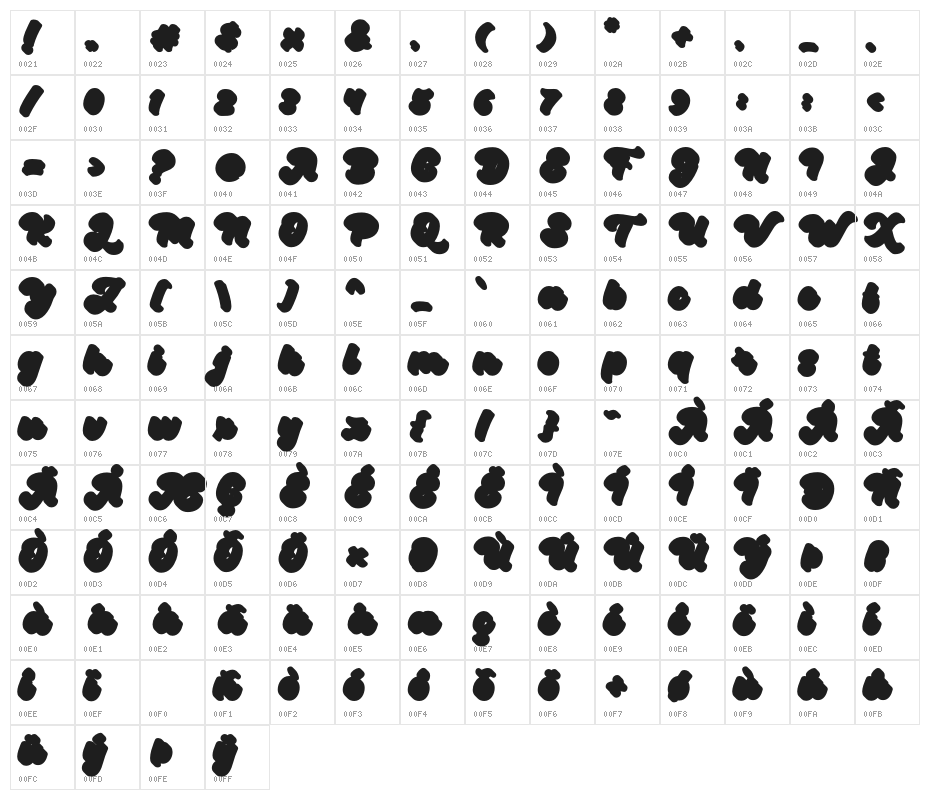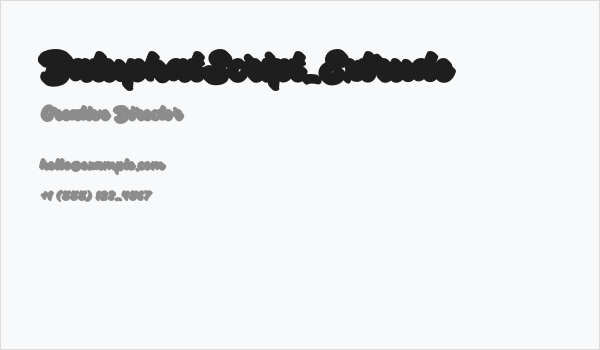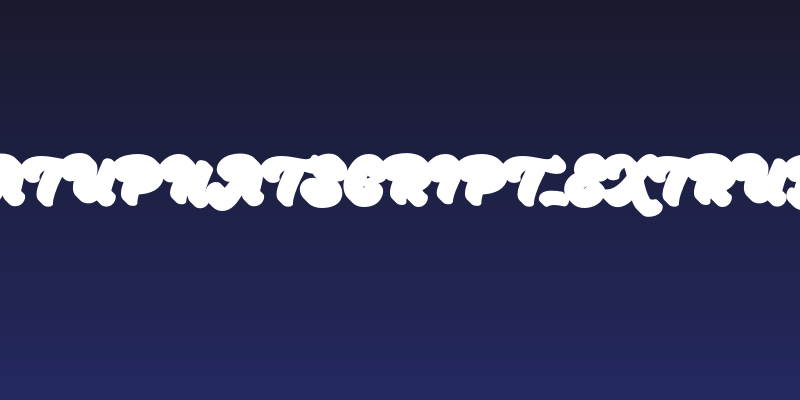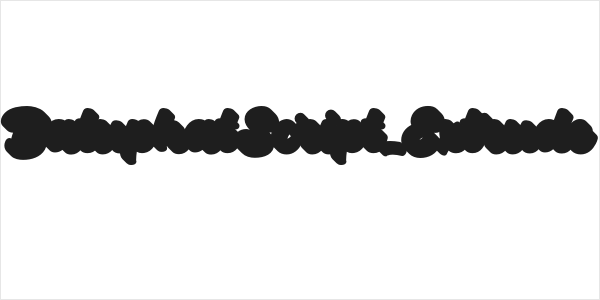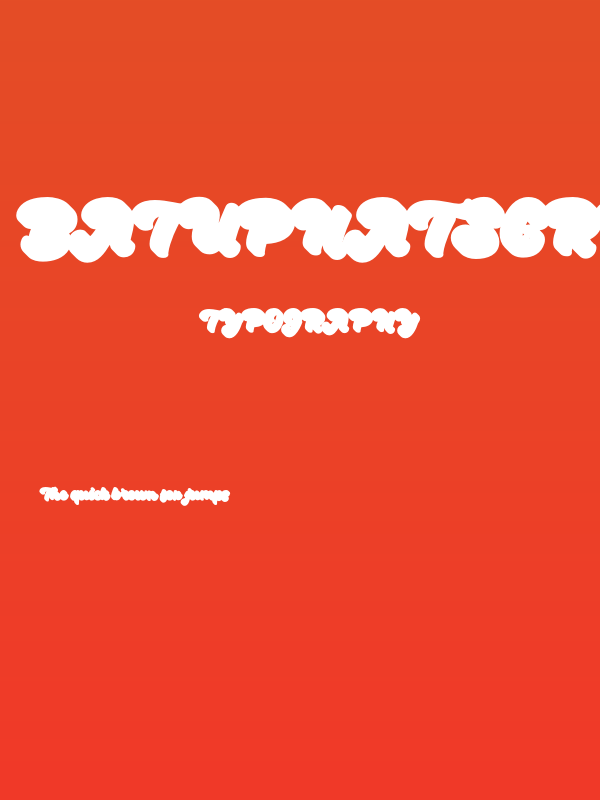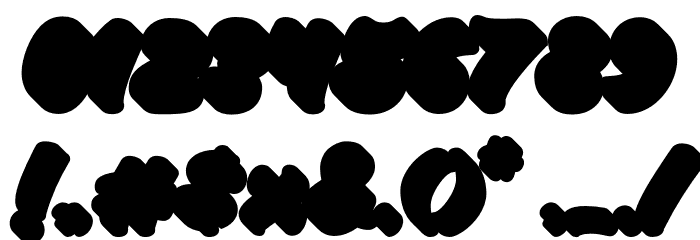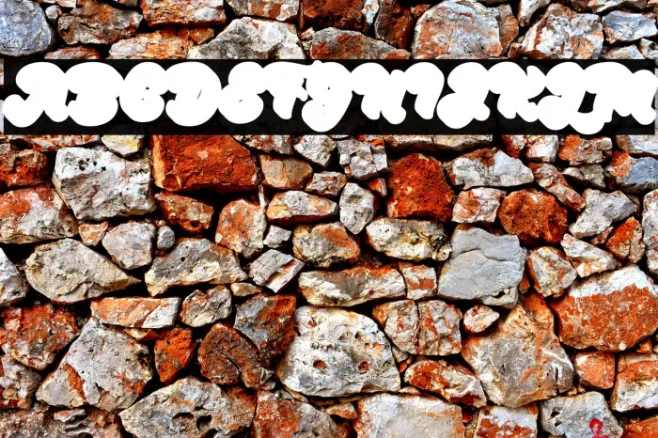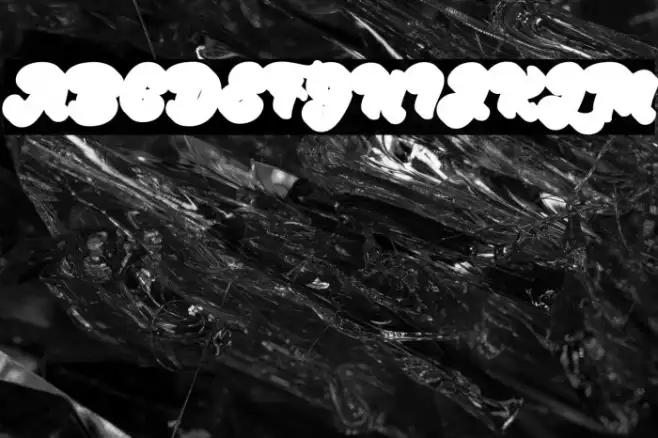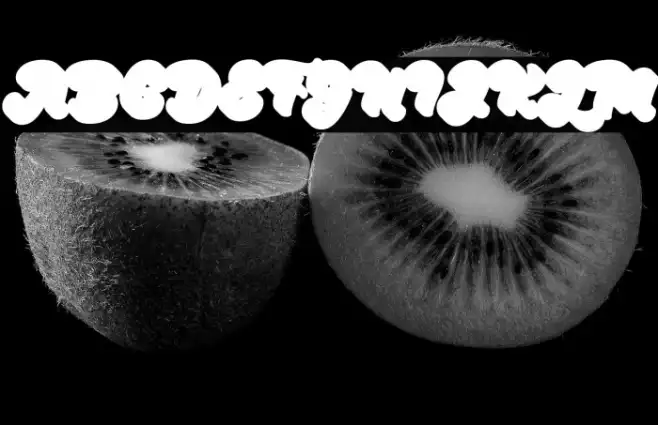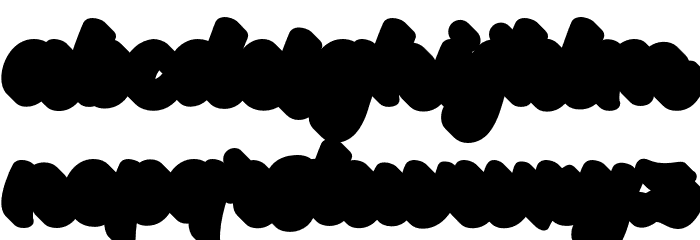
BatuphatScript-Extrude Font
BatuphatScript-Extrude Description
This font features a bold, playful script style with an extruded, three-dimensional effect. The characters are rounded and heavily stylized, creating a sense of movement and energy. The thick strokes and exaggerated curves give it a cartoonish and whimsical appearance. The font is highly decorative, making it suitable for eye-catching designs. Its unique style is characterized by a strong presence and a fun, informal vibe, perfect for projects that require a touch of creativity and flair.
| Proposed Projects | Ideal for children's book covers, playful branding, event posters, and creative social media graphics. |